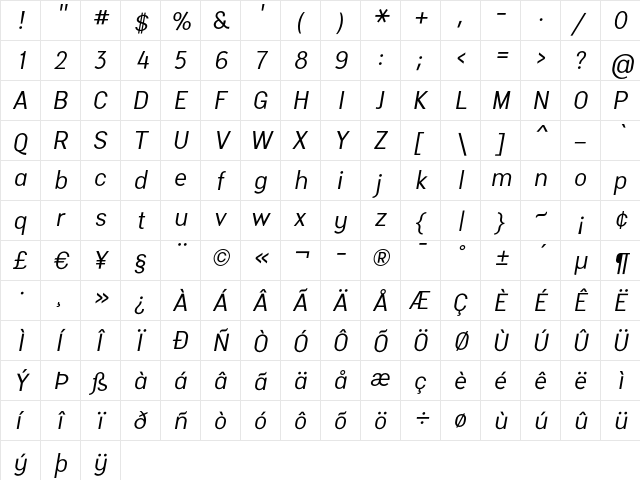
MalmoSans Regular Italic
Design Context for MalmoSans Regular Typeface
MalmoSans Regular is a composed and adaptable typeface that performs quietly and consistently across a wide range of design contexts. Its italic angle brings a sense of urgency and motion to the letterforms.
Pro Tip: Try MalmoSans Regular for annotation and caption copy alongside an upright companion — the contrast in angle creates a dynamic but ordered typographic system.